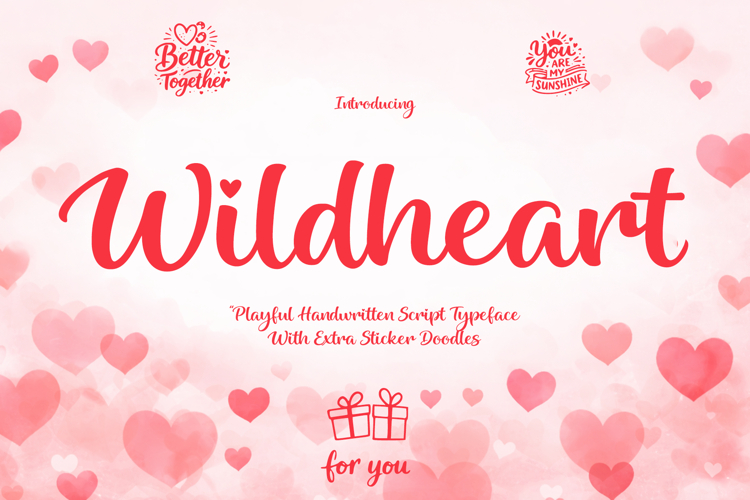
Simple stylish
Wildheart is a playful handwritten script typeface with smooth curves and a friendly, casual style that brings a warm and cheerful feel to designs. Its natural handwritten flow makes it suitable for Valentine themes, stickers, quotes, invitations, branding, social media graphics, and creative projects, while the included extra sticker-style doodles add charming decorative accents for both digital and print use.